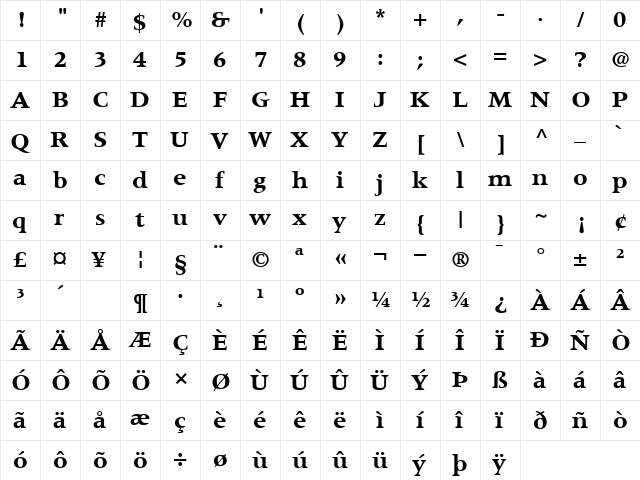
Meridien Bold
Design Context for Meridien Typeface
Meridien offers clean, dependable letterforms without strong stylistic allegiance, making it a practical choice for designers who need flexibility. Its bold stroke weight gives it real presence on the page.
Pro Tip: Pair Meridien with a font of contrasting weight or personality to build a more expressive typographic hierarchy.